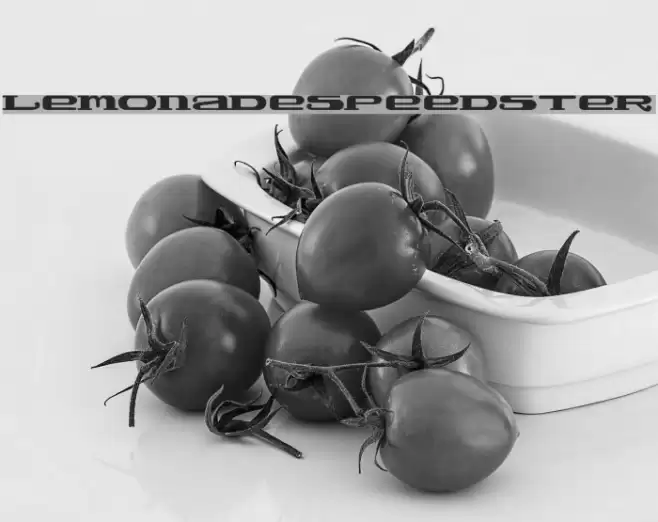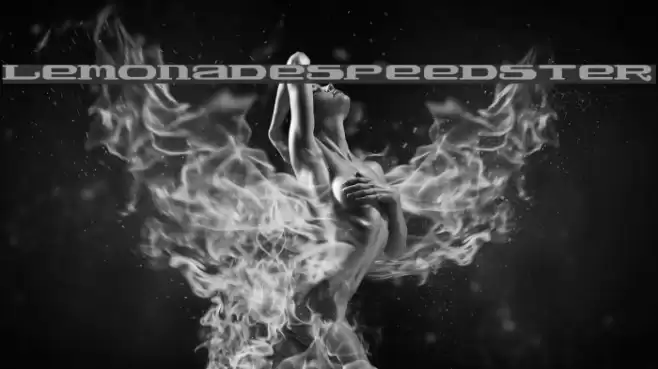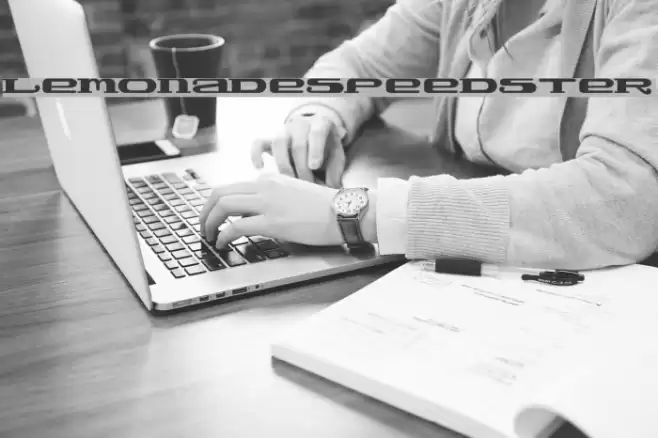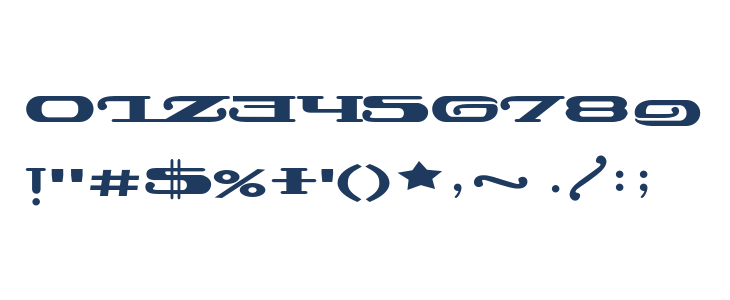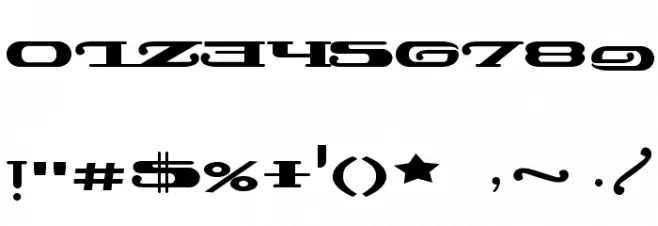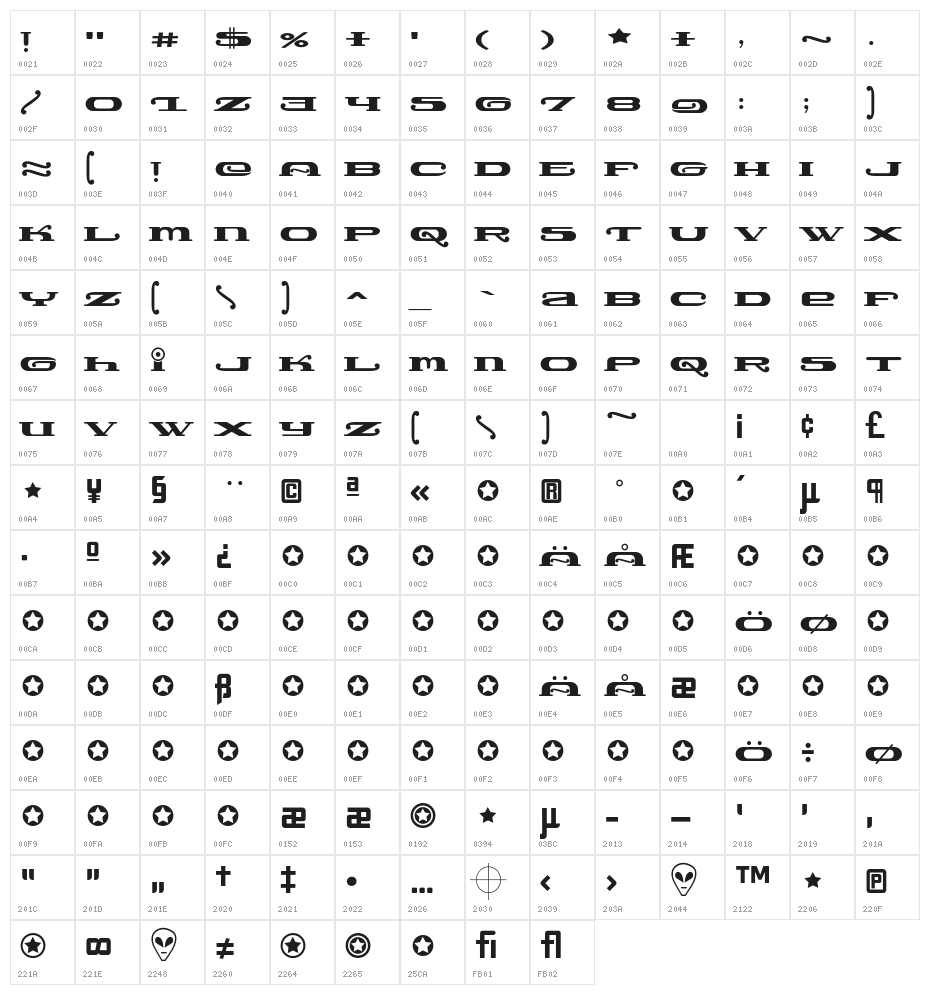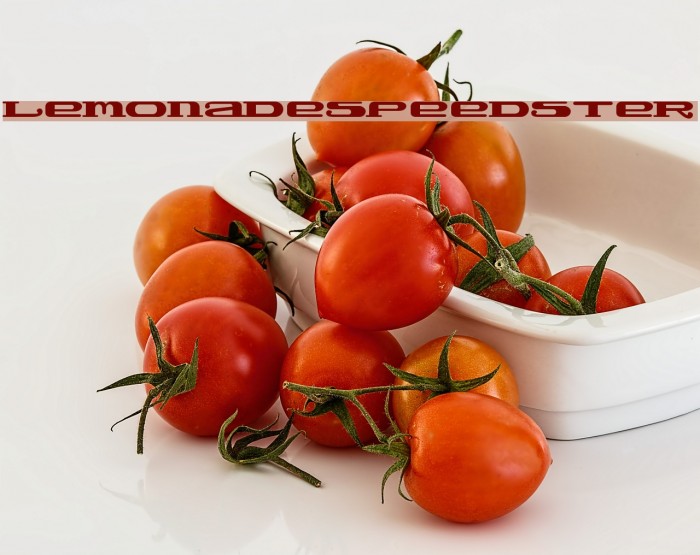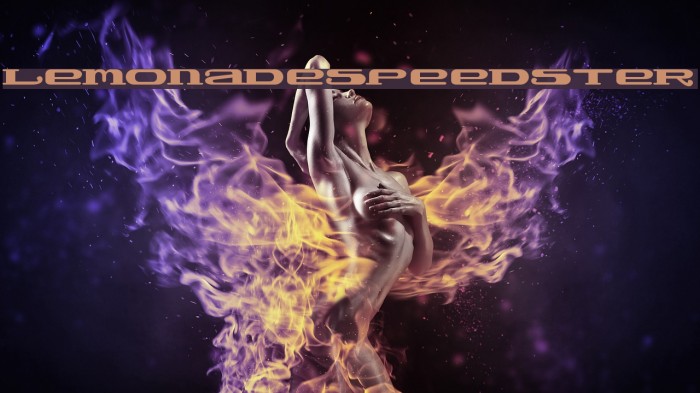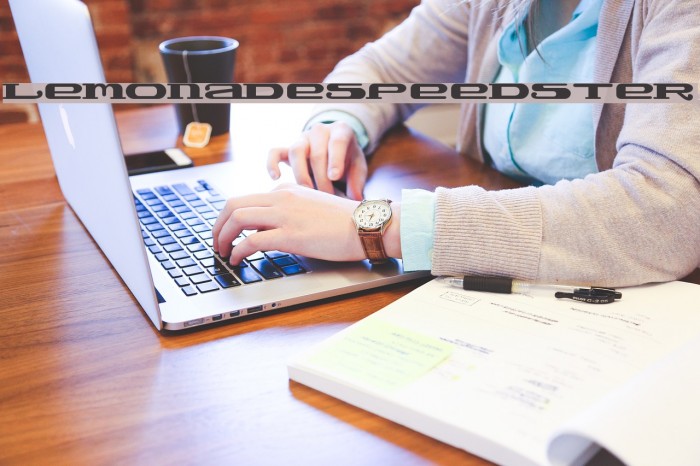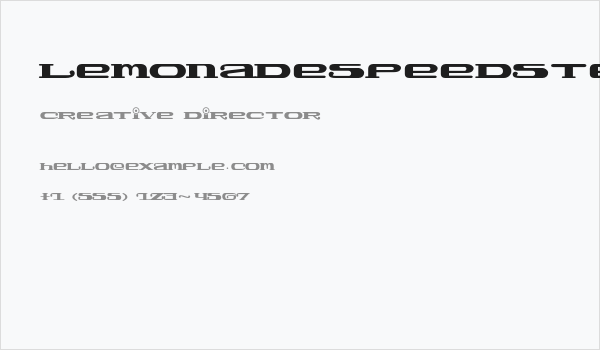
LemonadeSpeedster Font
LemonadeSpeedster Description
This font features a bold and dynamic design with a futuristic flair. The characters are uniquely styled with sharp angles and a sleek, aerodynamic appearance, reminiscent of speed and motion. The uppercase letters are particularly striking, with elongated forms and distinctive cuts that add a sense of energy and modernity. The lowercase letters maintain this theme, offering a cohesive look across the typeface. Numbers and special characters are equally bold, ensuring consistency throughout. This font is perfect for projects that require a modern and edgy aesthetic, capturing attention with its distinctive style.
A bold, futuristic font with sharp angles and a sleek, dynamic design from Uncategorized fonts.
- Proposed Projects: Ideal for branding, sports team logos, automotive designs, and tech-related projects.
- Use Case: Logos, Headlines, Branding